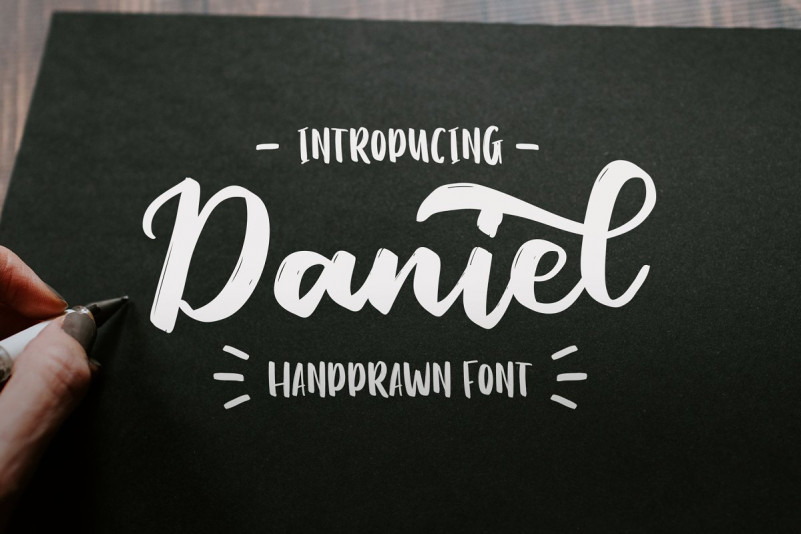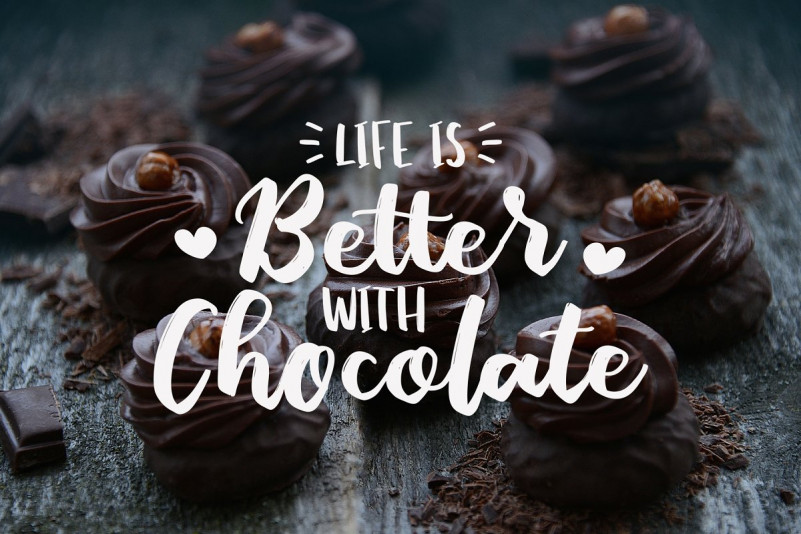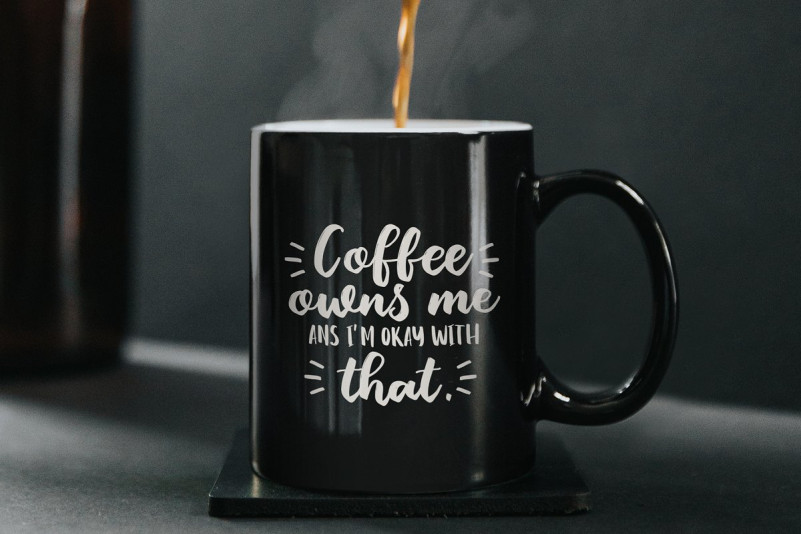
Daniel Script – Font
Introducing Daniel script font duo which has a hand lettering brush style. So it looks natural like a handmade. This font is best used for your design project that has the concept of fun, girly, romantic and elegant. Can also be applied to the design of a logotype, header website, wedding logo, romantic design, makes some lettering a quote, T-shirt design etc.